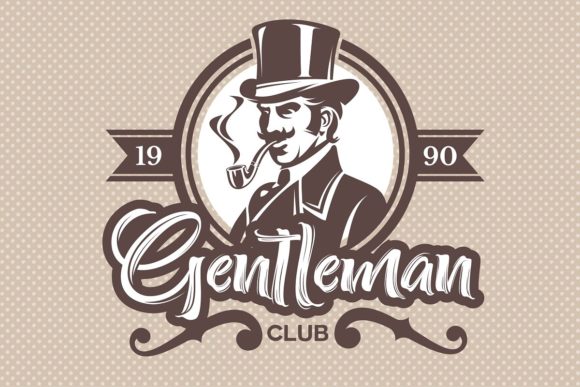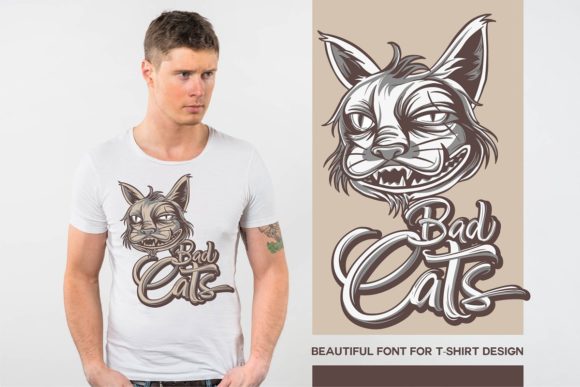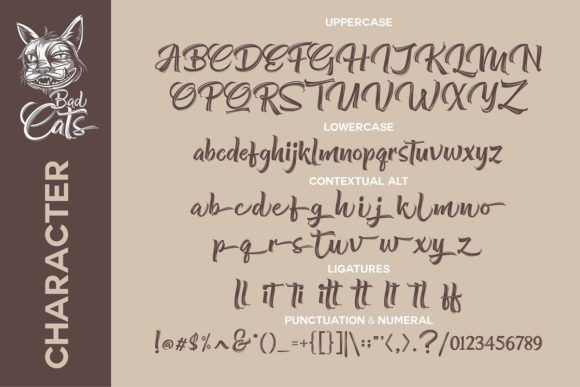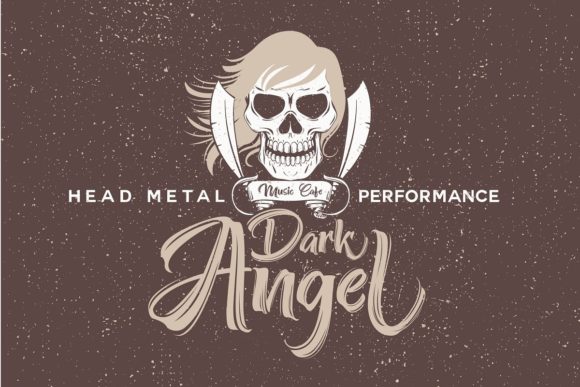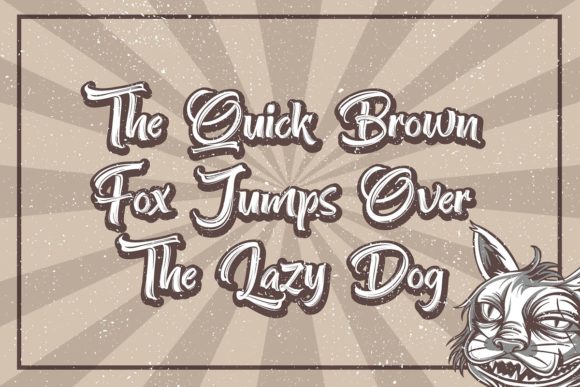
Unleash Your Creativity with Bad Cats Font: A Playfully Unique Display Font
Are you a designer, crafter, or DIY enthusiast looking for a font that can add a touch of playfulness and boldness to your projects? Look no further than Bad Cats Font! This display font is designed to make a statement with its rich swashes and spacious lettering, perfect for creating eye-catching titles, headings, and quotes.
What Makes Bad Cats Font So Special?
Bad Cats Font is a one-of-a-kind display font that boasts a unique and bold aesthetic. Its playful design features rich swashes that add a touch of elegance and sophistication to any project. The spacious lettering ensures that each character stands out, making it perfect for creating visually appealing text.
Whether you’re working on a graphic design project, crafting a handmade card, or creating a DIY sign, Bad Cats Font is sure to inspire your creativity. Its versatility makes it suitable for a wide range of applications, from formal events to casual gatherings.
Key Features of Bad Cats Font
- Playfully unique design: Bad Cats Font features a bold and playful design that’s sure to grab attention.
- Rich swashes: The font’s rich swashes add a touch of elegance and sophistication to any project.
- Spacious lettering: The spacious lettering ensures that each character stands out, making it perfect for creating visually appealing text.
- Display font: Bad Cats Font is designed as a display font, making it perfect for titles, headings, and quotes.
How to Use Bad Cats Font in Your Projects
Bad Cats Font is easy to use and can be incorporated into a variety of projects. Here are a few ideas to get you started:
- Graphic design projects: Use Bad Cats Font to create eye-catching titles and headings for brochures, posters, and flyers.
- Handmade cards and invitations: Add a touch of personality to your handmade cards and invitations with Bad Cats Font.
- DIY signs and banners: Create visually appealing signs and banners with Bad Cats Font that are perfect for events, parties, and gatherings.
- Digital art and illustrations: Use Bad Cats Font to add text to your digital art and illustrations, making them more engaging and interactive.
Tips and Tricks for Working with Bad Cats Font
Here are a few tips and tricks to help you get the most out of Bad Cats Font:
- Experiment with different colors: Try pairing Bad Cats Font with different colors to create unique and visually appealing combinations.
- Play with font sizes: Experiment with different font sizes to create visual interest and hierarchy in your text.
- Combine with other fonts: Try pairing Bad Cats Font with other fonts to create a unique and interesting typography combination.
| Font Name | Bad Cats Font |
| Author | Olexstudio |
Bad Cats Font is a playfully unique display font that’s sure to inspire your creativity. With its rich swashes and spacious lettering, it’s perfect for creating eye-catching titles, headings, and quotes. Whether you’re a designer, crafter, or DIY enthusiast, Bad Cats Font is a versatile and fun font that’s sure to add a touch of boldness and playfulness to your projects.